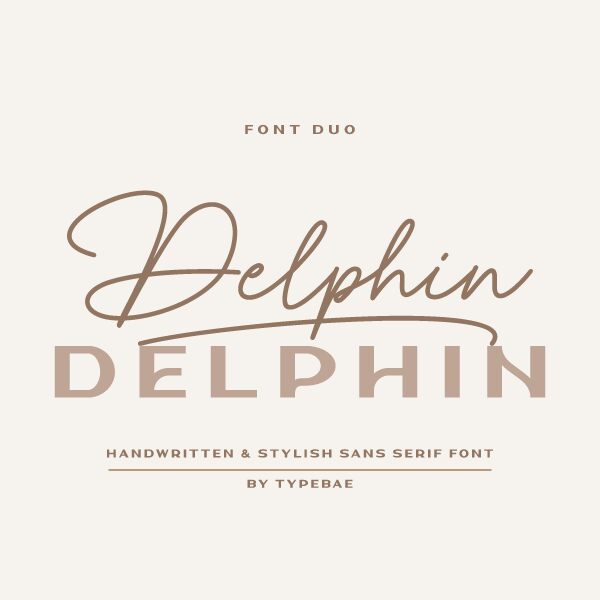
Delphin Sans
Delphin Sans font is a clean and modern sans serif font by Typebae Foundry. It captures a professional vibe needed for every prominent project. Its geometric and minimalistic design further add to its appeal, strengthening its visual impact. The extended width of the letters works in its favor as well, allowing more room for decoration.
There are plenty of jobs where the Delphin Sans typeface can excel. Think branding projects, book covers, advertising tools (posters, flyers), magazines for children or adults, newspapers’ editorial pages possible layouts, business-related documents and so on.